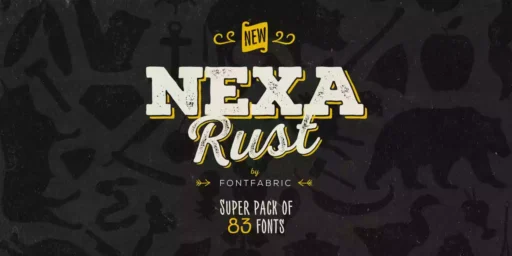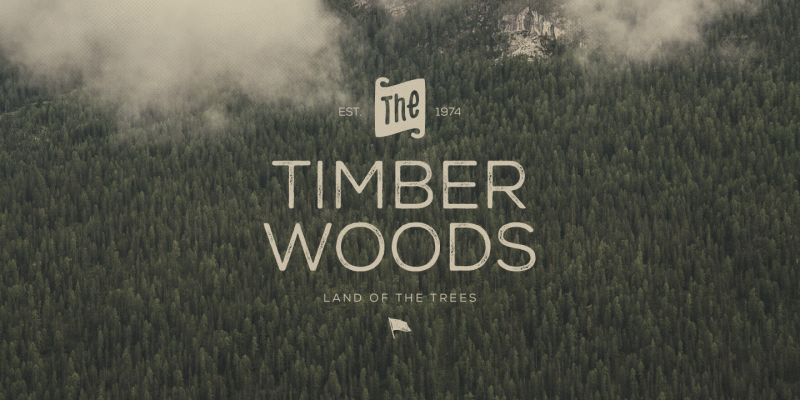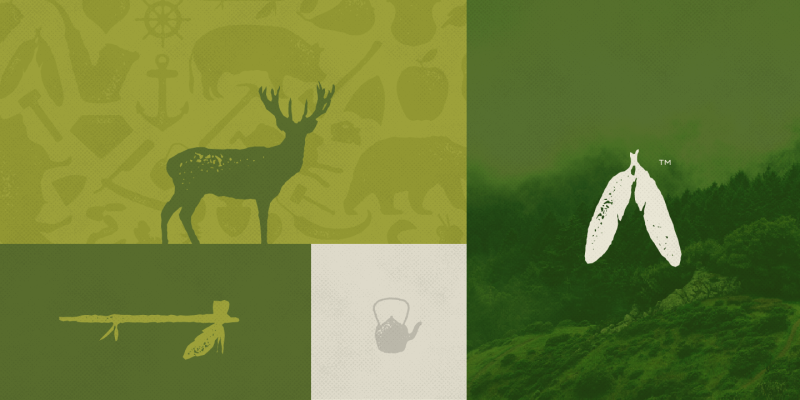
Nexa Rust Font
Nexa Rust is a very functional and very flexible font with a rough and ready, almost artisanal look. It was developed by Fontfabric, a Bulgarian type foundry that provides a whole range of typefaces for design. This typeface family consists of slab, sans, script, and handmade fonts, each with a slightly different feel and personality.
Nexa Rust distinguishes itself from other variants due to its rough and grainy finish, which is perfect for giving any project a nostalgic look of an old factory. Its appearance is not glossy and smooth but has a texture that has some slight flaws and rough edges giving it a look that mimics the traditional letterpress. Nexa Rust, therefore, comes in handy for projects that need that added touch of reality and an aged look such as branding, packaging, signage and editorial design.
Nexa Rust is a relatively new font that is derived from Nexa and Nexa Slab typefaces by the typefoundry Fontfabric. The original Nexa fonts had a very modern design with linear and geometrical forms, and Nexa Rust is a whole new approach. Launched in 2013, the Nexa Rust was a response to the idea of introducing an element of roughness and ruggedness to the Nexa brand. This evolution led to a font system that is coherent with the other Nexa fonts but with a different taste.
The design of Nexa Rust was a precise process of custom distortion and aging of the letterforms. This approach gave the font a worn, vintage look as if it was an old sign or hand painted lettering. The end product is a typeface that has a sense of familiarity to it but at the same time, has something new and interesting to offer.
Nexa Rust has a certain ruggedness, uneven surface, and slight flaws. These features give it an organic look, making it perfect for designs that want to create a cozy and handmade vibe. The font family comprises different styles and weights within the sub-families like Nexa Rust Sans, Nexa Rust Slab, Nexa Rust Script, and Nexa Rust Handmade. This vast choice enables the designers to combine the elements within the same font family and thus create consistent yet different typographic concepts.
Another noteworthy aspect of Nexa Rust is the large selection of glyphs and decorations that are available in addition to the normal characters. These extras are the elements that are not essential for the design but can contribute to its uniqueness and expressiveness; these are the icons, symbols and other similar design elements. These are the features that distinguish Nexa Rust from the other fonts and offer a set of tools for the designers.
Nexa Rust’s versatility provides many uses. It has made its way into branding, packaging, editorial design, web design, and even the signs that you see around you. This design is capable of giving the feeling of the old world as well as the present world, which makes it suitable for use in many undertakings.
In the branding context, Nexa Rust can help design logos and visual identities that are honest and human-like. This gives it a three-dimensional feel that enhances branding elements to pop out.
In the context of packaging design, it is possible to make products more attractive and create the impression of good craftsmanship with the help of Nexa Rust. It is a suitable material for packaging projects and it can be incorporated into both traditional and contemporary designs.
In editorial design, you can use Nexa Rust for headlines, subheadings, and body text to add some warmth and edge to the content. In terms of its usability, it is highly legible with a broad spectrum of weights that makes it ideal for editorial design.
While Nexa Rust is unique in its own way, there are a few fonts that share some of its characteristics:
Brother 1816: This font has a similar design: it has a worn look, jagged edges, and an overall rustic feel.
Gist Rough: Another font that has a worn out look is Gist Rough which includes several weights and styles.
Portico Rough: Portico Rough has a vintage look and feels hand-drawn with uneven surfaces and textures.
Nexa Rust Font is a Display Fonts font that brings a professional and versatile look to your projects. Nexa Rust is a very functional and very flexible font with a rough and ready, almost artisanal look.